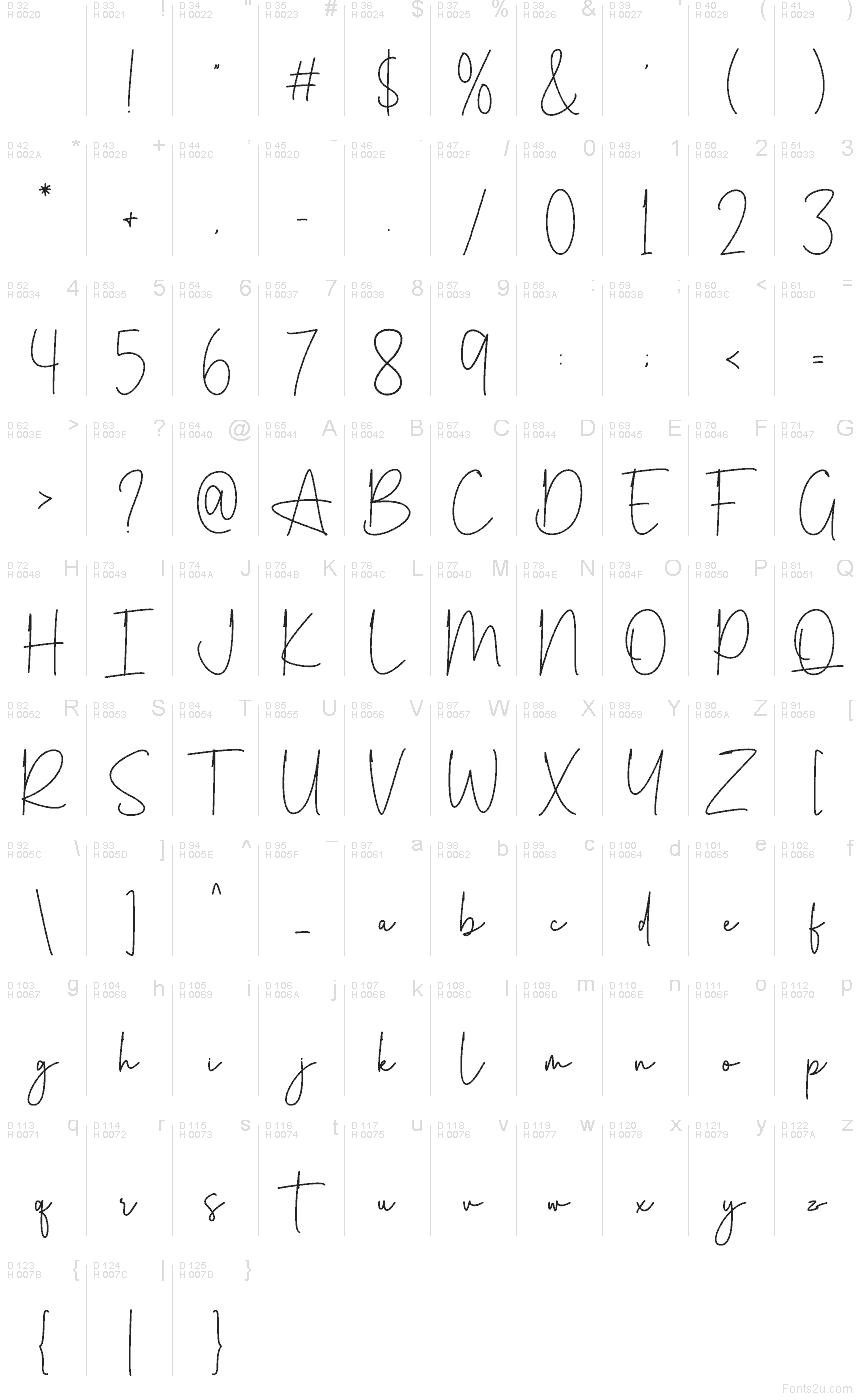
Athaliah
Athaliah font by RantautypeStudio is a free handwritten signature typeface with the airy feel of ink skimming across smooth paper. The tall, sweeping capitals and relaxed, slightly uneven strokes give it that effortless “just signed” look—polished but not stiff. Fine hairlines and generous loops create a light, breathable texture that feels personal, modern, and quietly luxurious.
Using Athaliah, your text carries the easy confidence of a custom signature, so it shines on logos, boutique branding, wedding stationery, social media posts, watermark signatures, business cards, and packaging. This free font works beautifully when set large with plenty of white space; pair it with a clean sans serif for body text to keep the script feeling crisp and elevated.